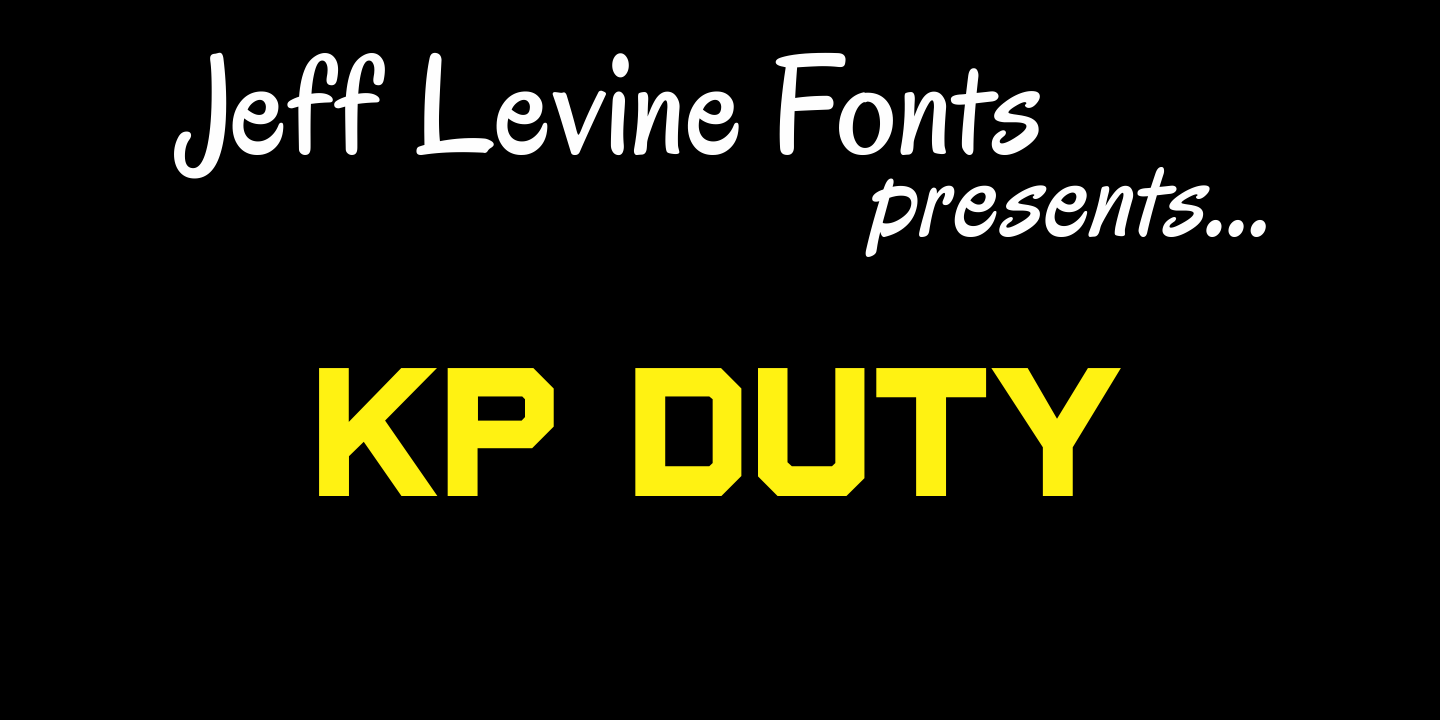
KP Duty
KP Duty JNL emulates the lettering found on military equipment. It's a bold and macho design, perfectly suited for any project which has an armed forces theme.